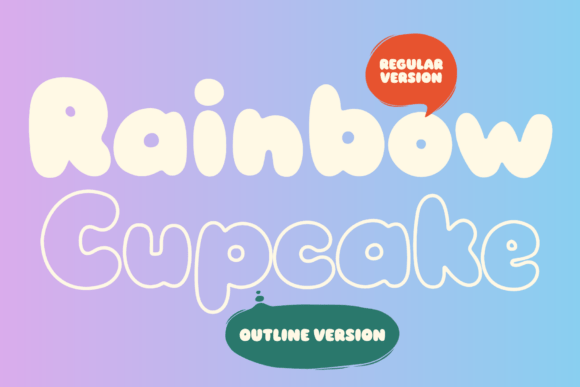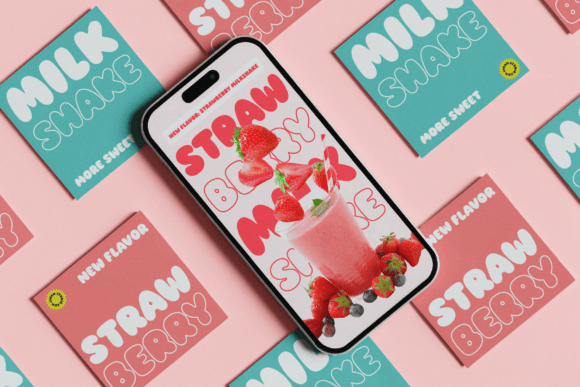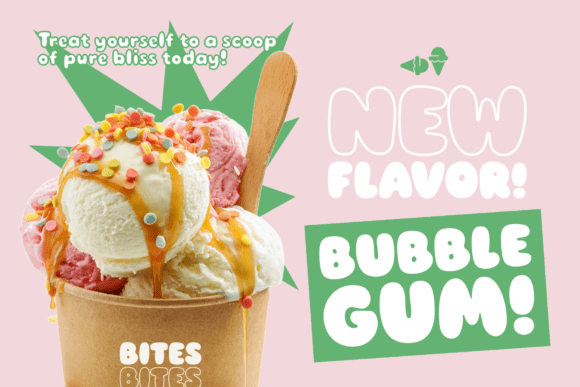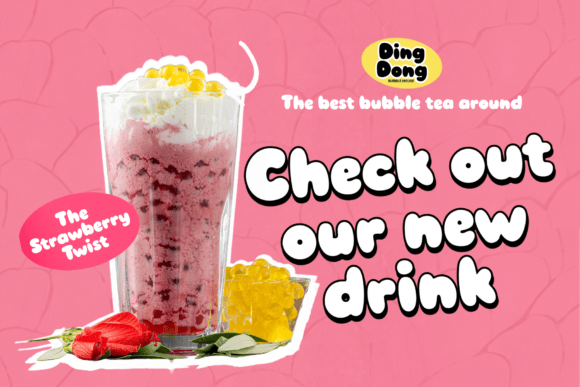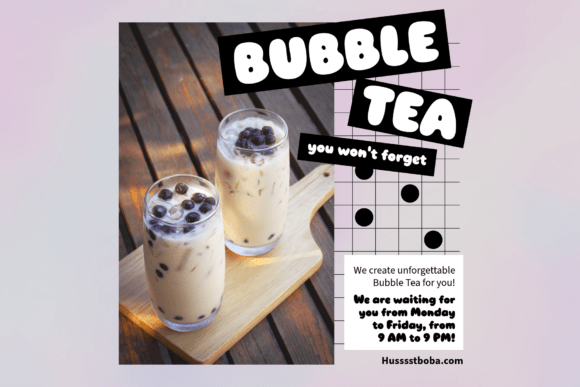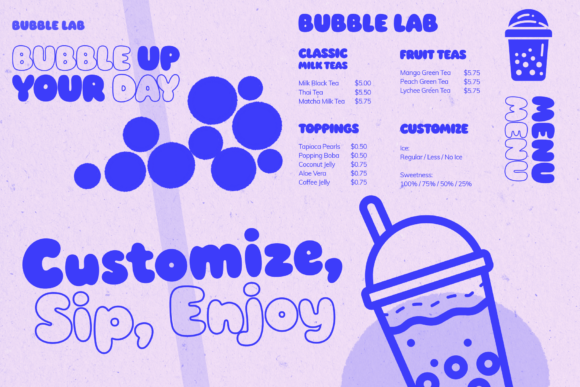
Gummy Loops Font: The Sweetest Addition to Your Design Collection
Are you tired of using the same old fonts in your designs? Look no further than Gummy Loops, a super playful and bubbly display font that’s sure to bring instant joy to any project. With its soft, rounded shapes and extra-cute personality, this font feels like candy for your eyes. In this article, we’ll dive into the features and benefits of Gummy Loops, and explore how it can add a burst of fun to your designs.
A Font that’s as Cute as it Looks
Gummy Loops is designed to bring a smile to your face. Its soft, rounded shapes and playful curves make it perfect for kids’ designs, branding, packaging, posters, stickers, and anything that needs a burst of fun. The font comes in two styles: Regular and Outline, giving you flexible options for bold titles, layered designs, or colorful compositions. Whether you’re creating adorable product labels, cheerful social media graphics, or eye-catching logos, Gummy Loops adds a sweet, friendly, and irresistible charm to your designs.
Multilingual Support for Global Audiences
In today’s global market, it’s more important than ever to have a font that can communicate with audiences around the world. Gummy Loops includes multilingual support, making it easy to use for designers and crafters who want to reach a global audience. With Gummy Loops, you can create designs that are accessible and engaging for people from different cultures and languages.
Gummy Loops is a versatile font that’s perfect for designers and crafters who want to add a touch of whimsy to their projects. Whether you’re creating digital designs or handmade crafts, this font is sure to inspire your creativity. Here are some ideas for using Gummy Loops:
- Kids’ designs: Use Gummy Loops to create fun and playful designs for kids’ parties, toys, and educational materials.
- Branding and packaging: Add a burst of fun to your brand’s packaging and marketing materials with Gummy Loops.
- Social media graphics: Create cheerful social media graphics that will engage your audience and make them smile.
- Logos and icons: Use Gummy Loops to create eye-catching logos and icons that will make your brand stand out.
- Crafts and DIY projects: Add a personal touch to your handmade crafts and DIY projects with Gummy Loops.
Why Choose Gummy Loops?
So why choose Gummy Loops over other fonts? Here are just a few reasons:
- Unique and playful design: Gummy Loops has a one-of-a-kind design that’s sure to grab attention.
- Flexible styles: The font comes in two styles: Regular and Outline, giving you flexible options for different design projects.
- Multilingual support: Gummy Loops includes multilingual support, making it easy to use for global audiences.
In conclusion, Gummy Loops is a super playful and bubbly display font that’s perfect for designers and crafters who want to add a touch of whimsy to their projects. With its soft, rounded shapes and extra-cute personality, this font feels like candy for your eyes. Whether you’re creating kids’ designs, branding, packaging, posters, stickers, or social media graphics, Gummy Loops is sure to bring instant joy to your designs. So why wait? Download Gummy Loops today and bring your ideas to life with a font that’s as cute and bouncy as it looks!